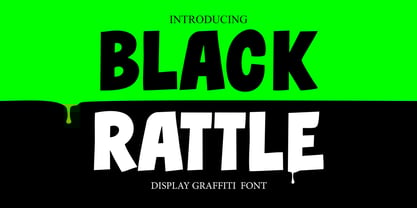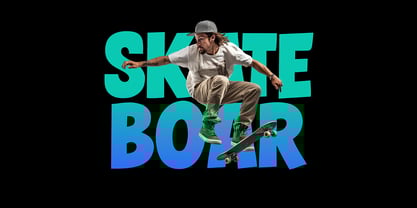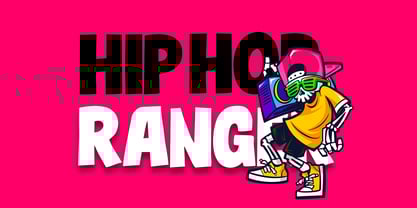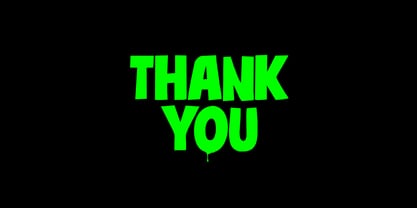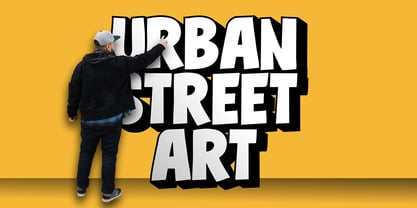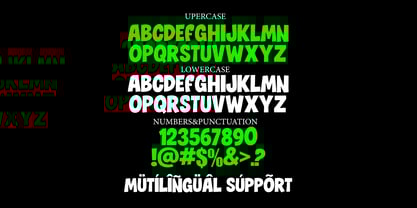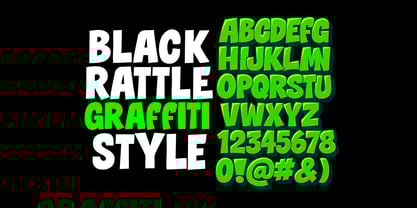
Black Rattle
by Sipanji21
The Black Rattle Font Family was designed by Sipanji and published by Sipanji21. Black Rattle contains 1 styles.
Black Rattle is a bold display graffiti font built with raw urban personality and dripping energy. Its strong lines, heavy weight, and subtle drip details capture the essence of street art, turning every word into a statement. Perfect for designs that need attitude, this typeface blends the toughness of graffiti culture with the clarity of a modern display font.
Each letterform was designed to reflect the rebellious, unpolished aesthetic of walls, shutters, and underground spaces. With uppercase, lowercase, punctuation, numerals, multilingual support, and dripping alternates, Black Rattle gives designers flexibility to create authentic street-inspired typography.
Use it for streetwear branding, posters, skate culture artwork, music flyers, sports merchandise, gaming graphics, album covers, and bold advertising campaigns. Its dripping details instantly deliver an urban mood, while the strong display form keeps it readable and impactful.
• Heavy, bold graffiti vibe
• Drip details for urban authenticity
• Perfect balance of rawness and legibility
• Multilingual characters included